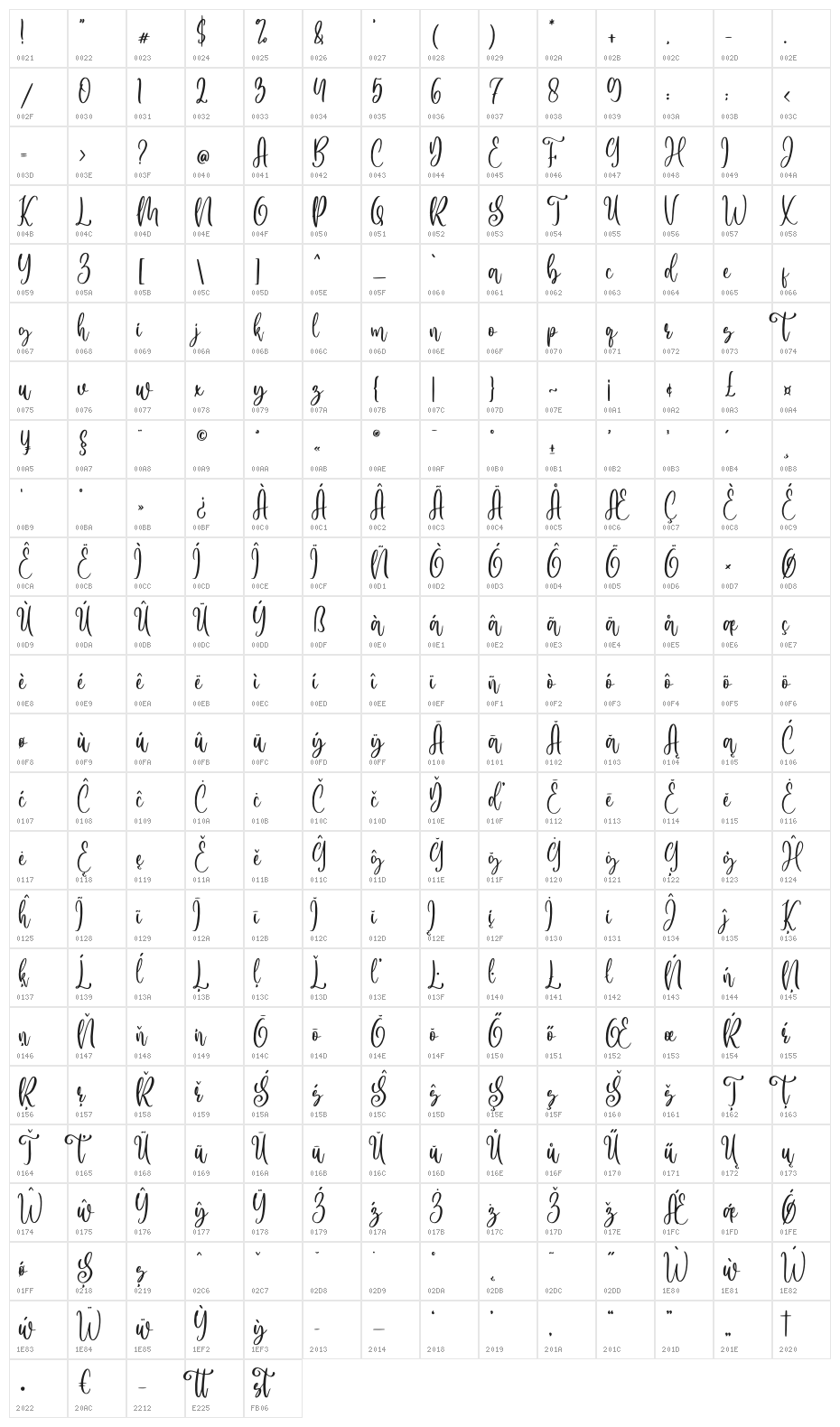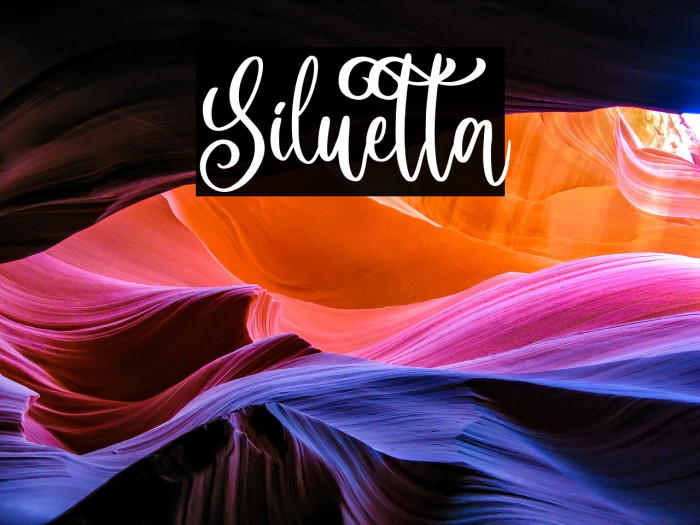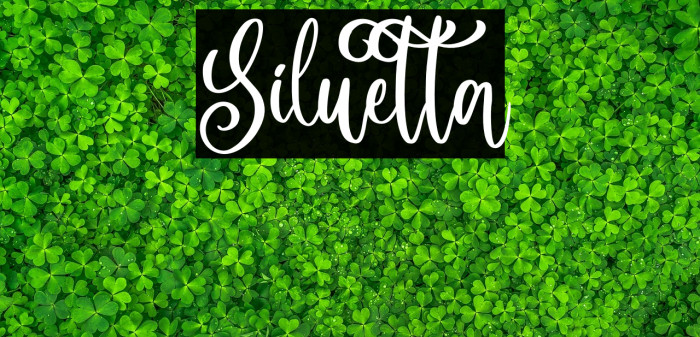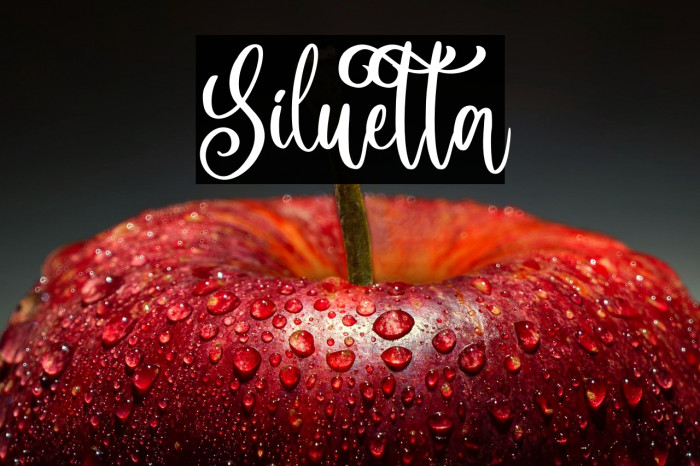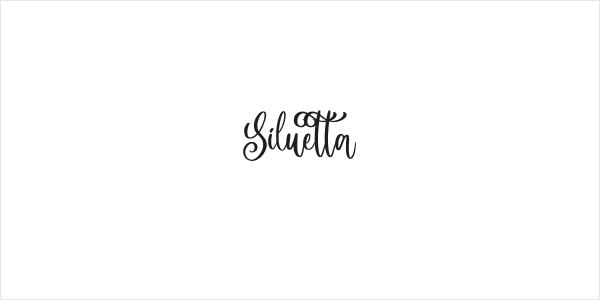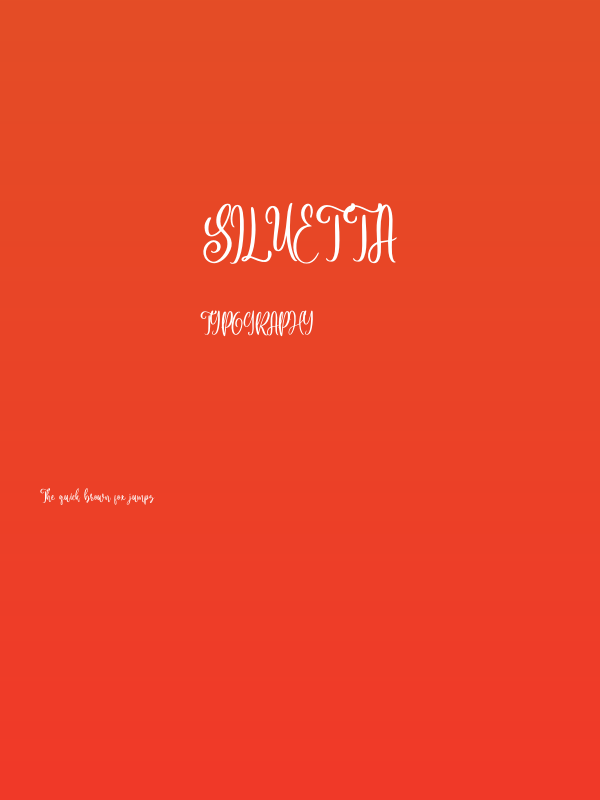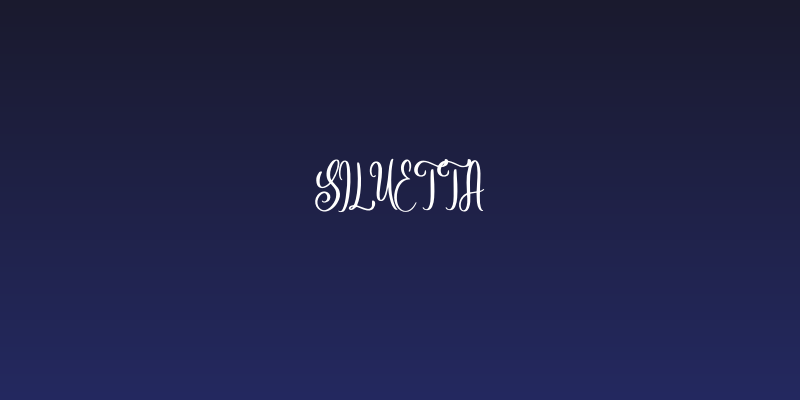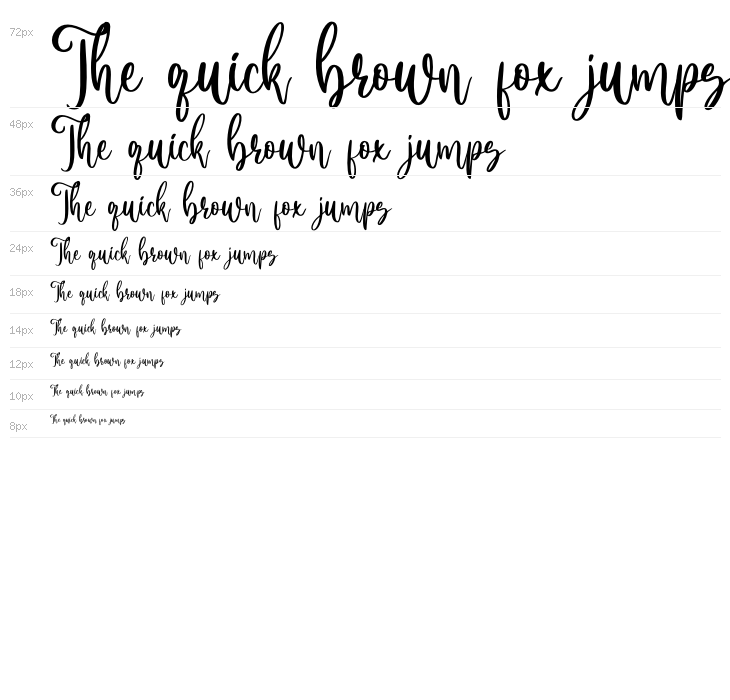
Siluetta Font
Siluetta Description
This font features an elegant and flowing script style, characterized by its smooth, cursive letterforms and decorative flourishes. The uppercase letters are particularly ornate, with loops and swirls that add a touch of sophistication and charm. The lowercase letters maintain a consistent style, with gentle curves and a slightly playful appearance. The numerals are designed to match the overall aesthetic, with a graceful and cohesive look. Special characters are also included, each with unique embellishments that enhance the font's decorative appeal. This font is perfect for projects that require a personal, handwritten touch.
| Proposed Projects | Ideal for wedding invitations, greeting cards, branding, and any design requiring a personal, elegant touch. |